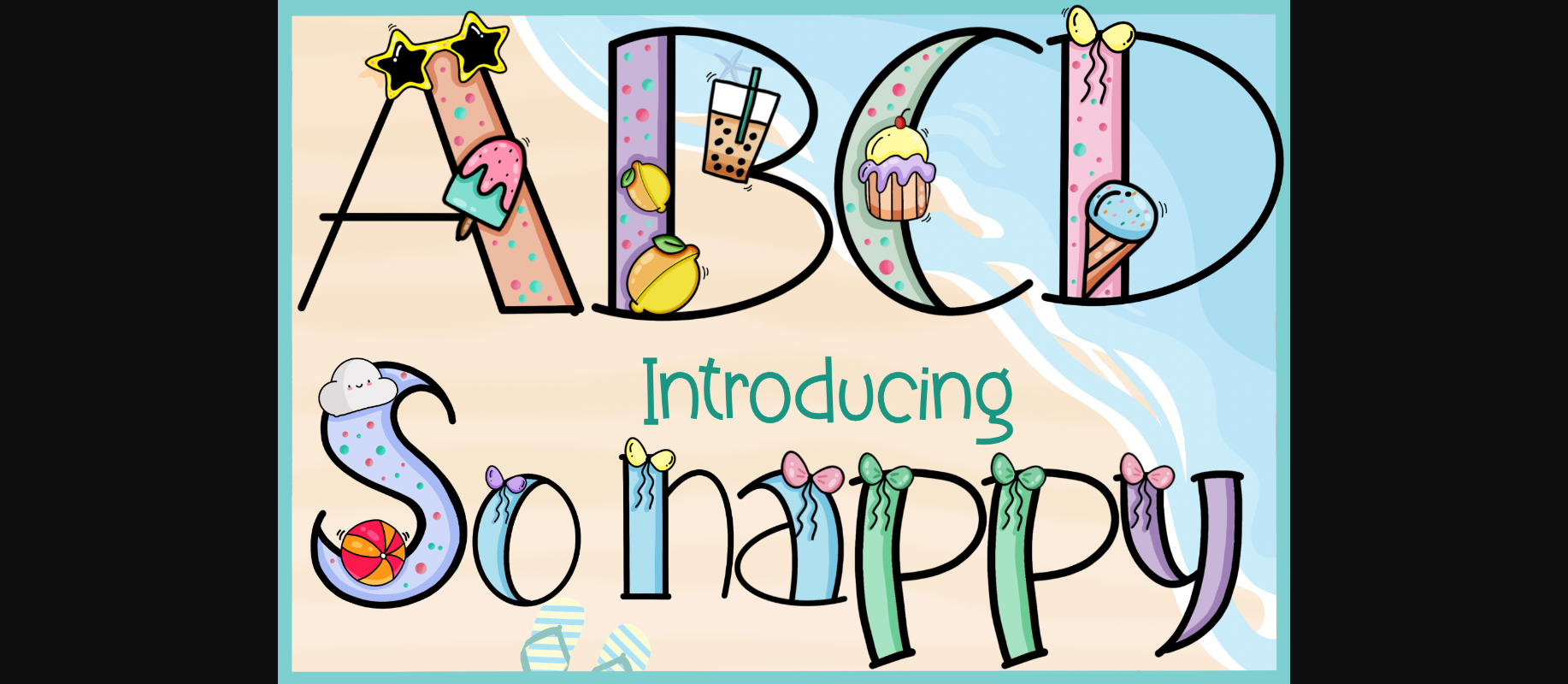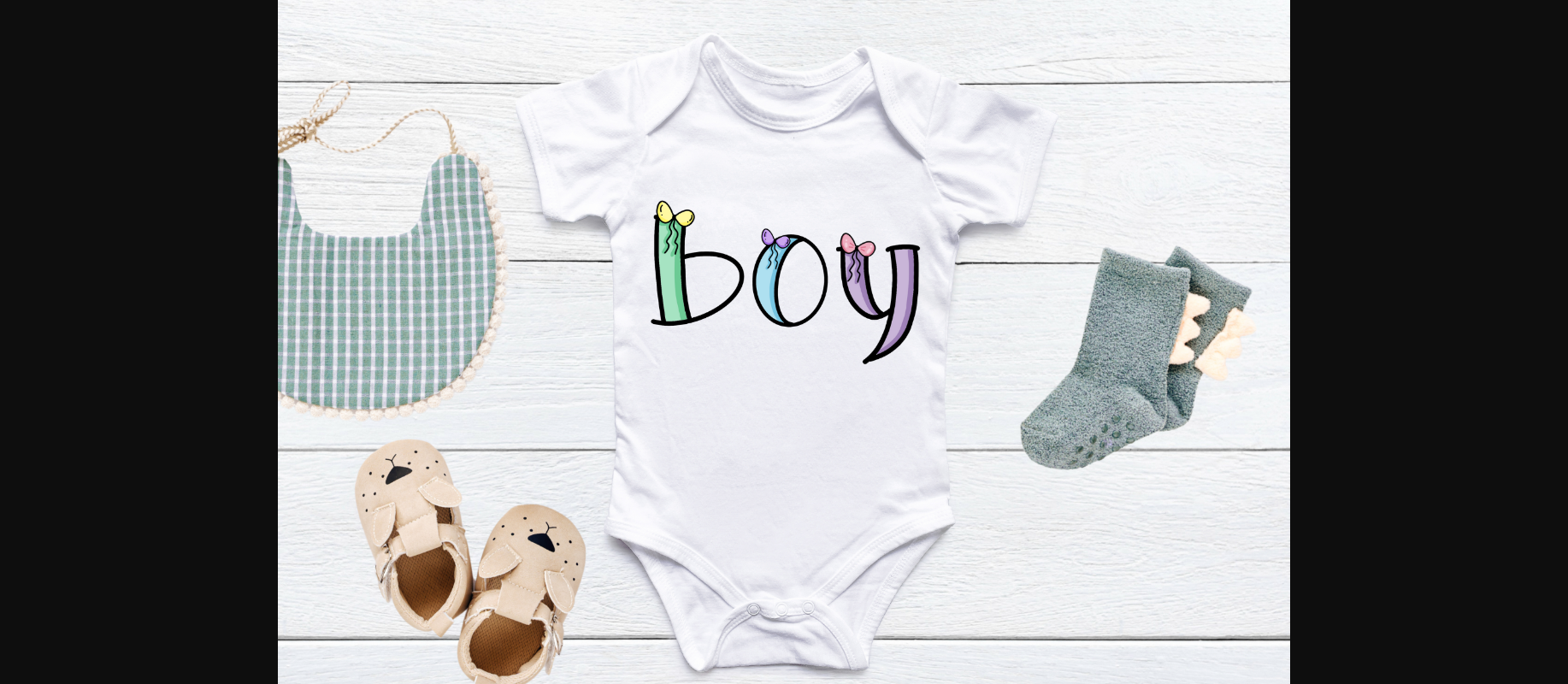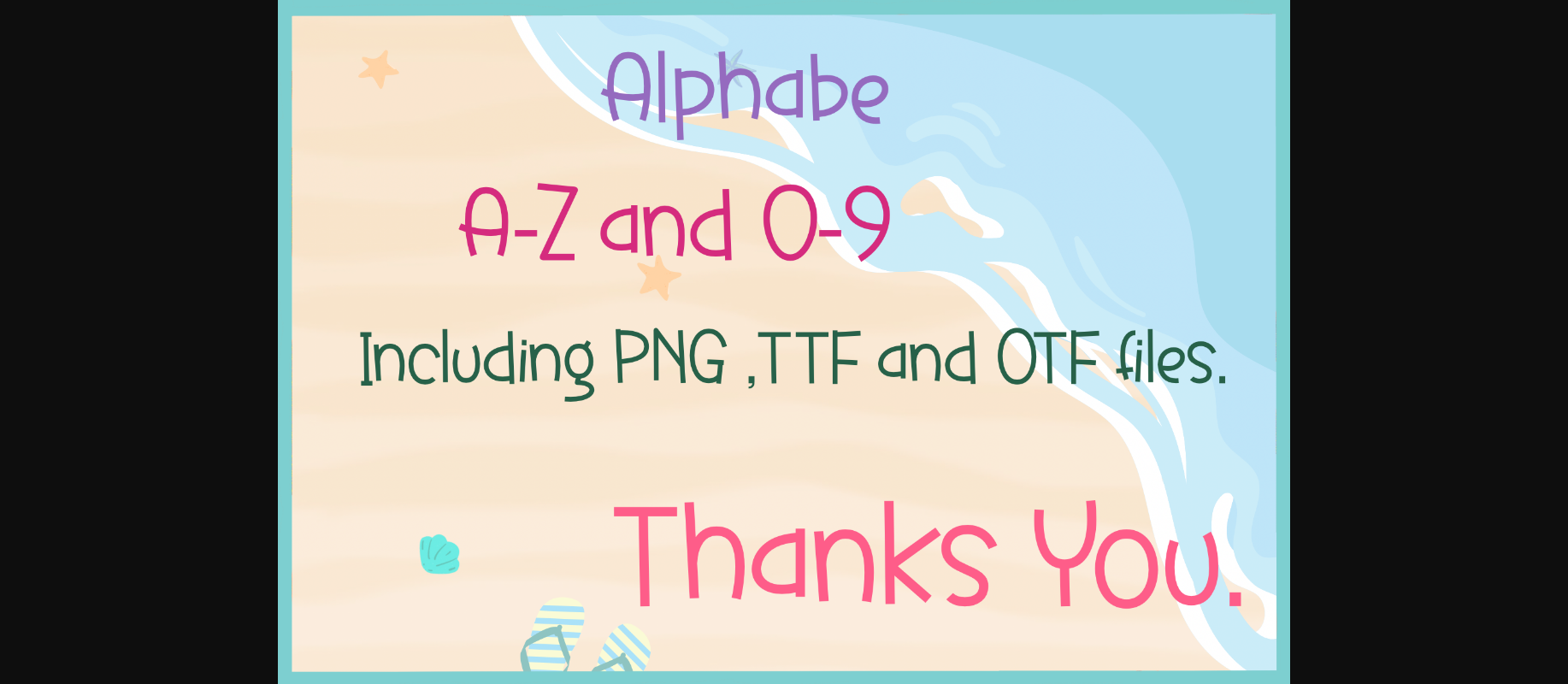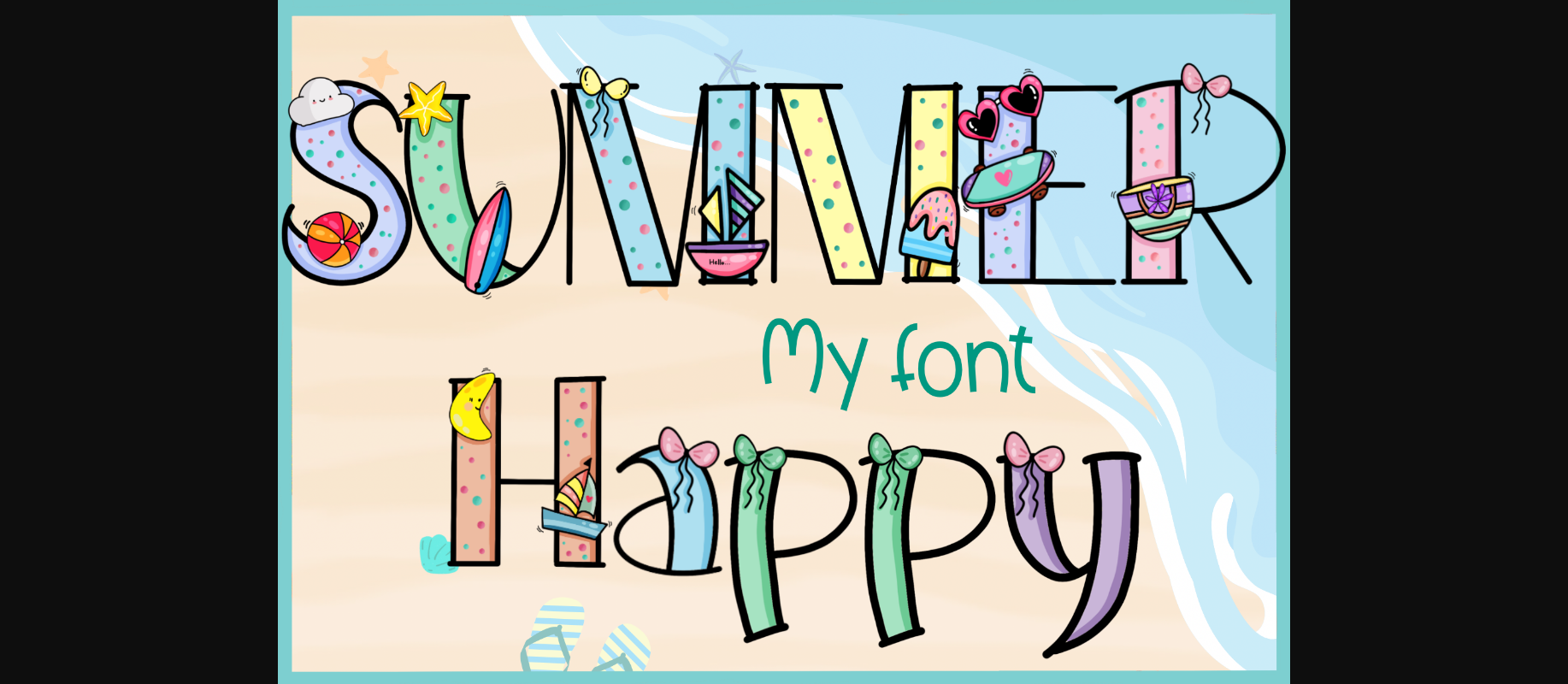
About So Happy Font
Designed to capture the carefree spirit of warm sun-kissed days, this typeface evokes a sense of joy and playfulness, perfect for adding a touch of seasonal charm to your designs.
It adds a whimsical touch to party invitations, capturing the excitement of poolside gatherings and backyard barbecues. It effortlessly complements summer-themed posters and advertisements, infusing them with a lively and inviting atmosphere. Whether you’re designing greeting cards, posters, or social media graphics, this font will bring a touch of sunshine to your compositions.